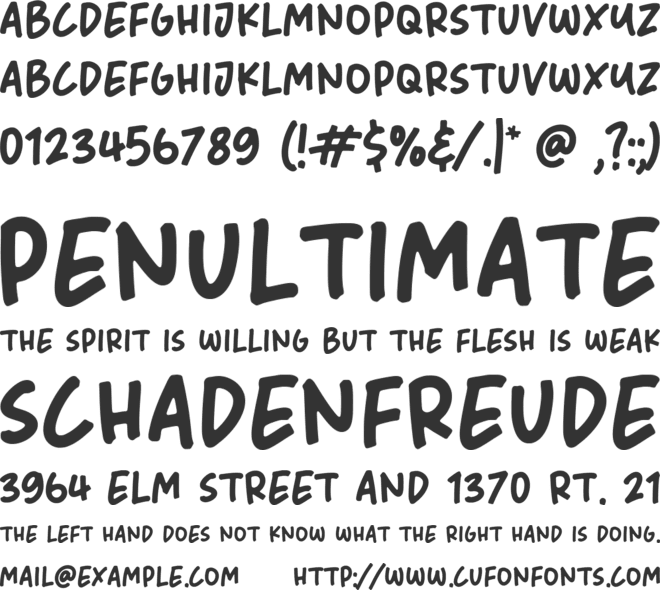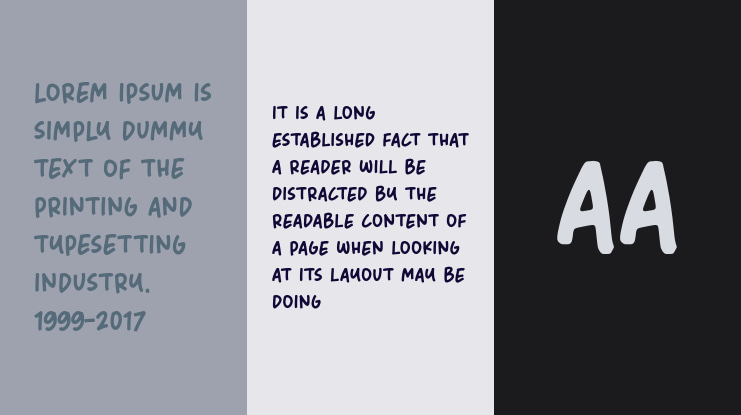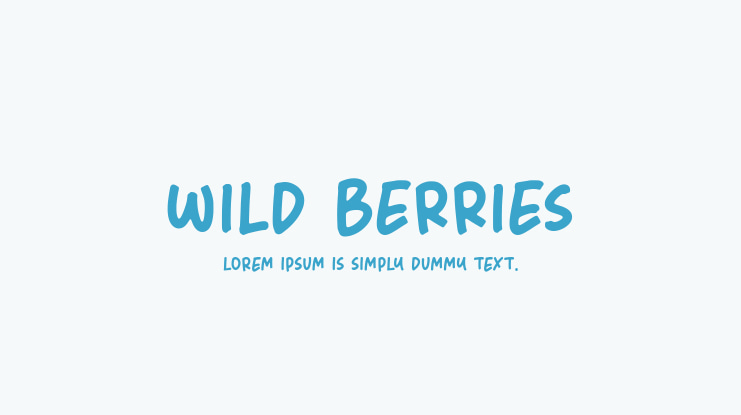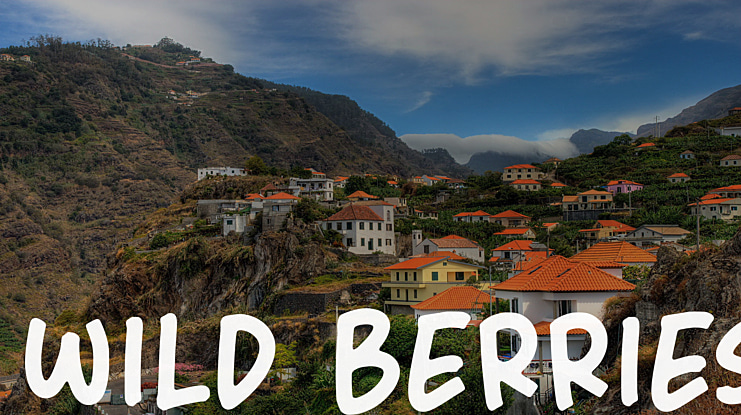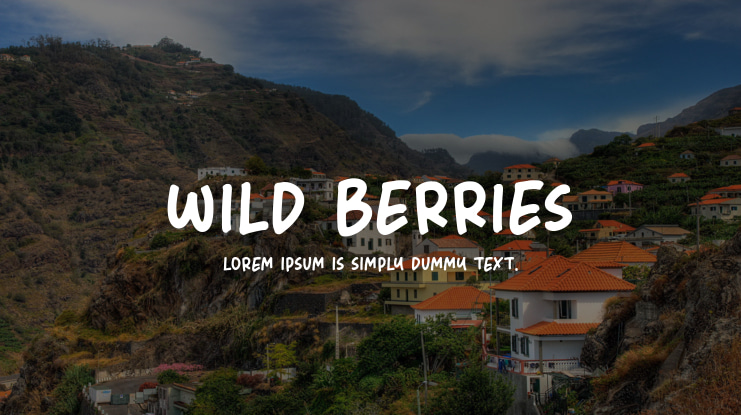
Wild Berries Font
Introducing Wild Berries by Balpirick Studio. This Handwritten Font is perfect for crafts, digital design, presentations, or creating greeting cards. It's versatile and can be used for any occasion!
With allcaps letters, this font is easy to read and adds a touch of elegance to your projects.